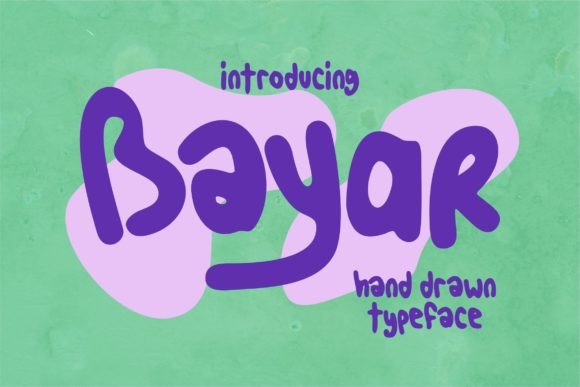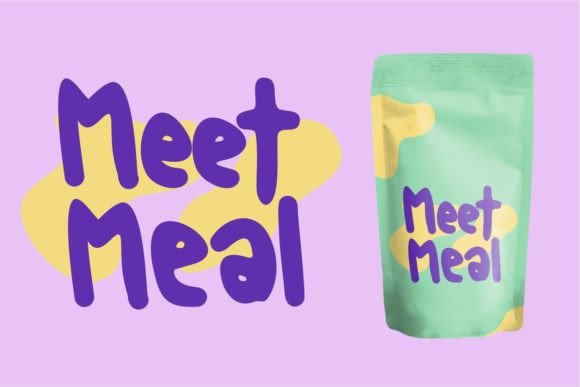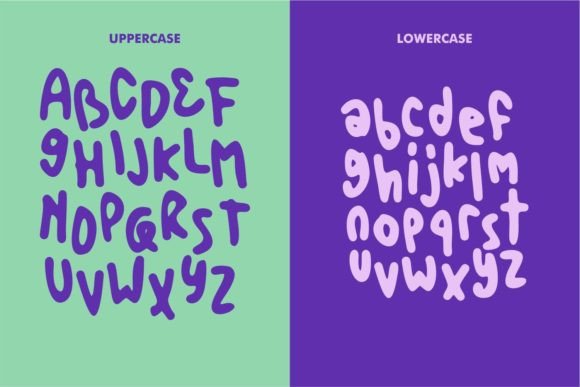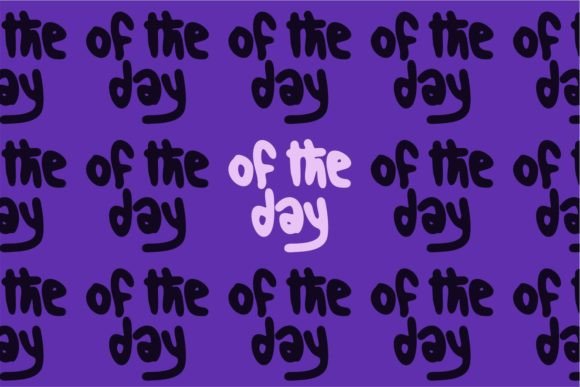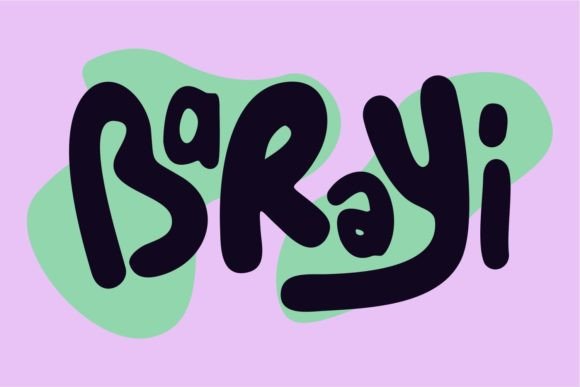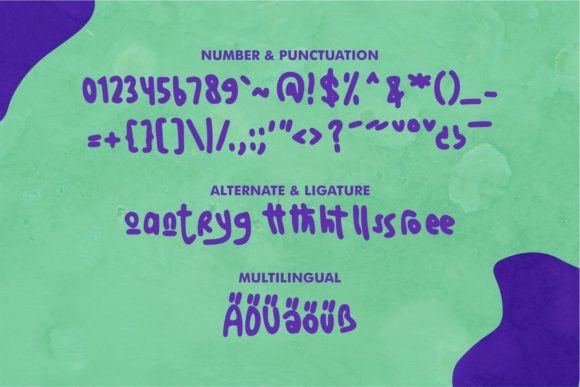
Bayar Font
About Bayar Font
Bayar is not just a font; it’s a bold and quirky handwritten script that brings a cool style to your designs, making it a unique choice for invitations, greeting cards, branding materials, business cards, quotes, posters, and more. The bold and quirky design of Bayar adds a distinctive touch to a variety of creative projects.
The bold and quirky nature of Bayar is evident in its handwritten script. The characters are crafted with a sense of boldness and individuality, making it a standout choice for projects that require a touch of uniqueness and cool style. Whether you’re designing invitations for a special event or creating business cards that make a statement, Bayar ensures that your designs stand out with its cool and quirky charm.
In branding materials, Bayar becomes a bold and memorable choice. Its quirky script adds a distinctive touch that reflects creativity and a cool vibe, making your brand visually appealing and unique.
For quotes and posters, Bayar’s bold and quirky script adds a layer of charm. The individualistic characters turn your words into visually striking statements, capturing attention and conveying a sense of creativity and style.
By including Bayar in your font collection, you’re not just adding a typeface; you’re selecting a design element that infuses your projects with boldness and quirky coolness. Bayar is designed to bring a dynamic and individualistic quality to your creative endeavors.
In essence, Bayar is a font that goes beyond being a tool. It’s an expression of bold and quirky script charm that transforms your invitations, branding materials, and creative projects into visually stunning and memorable works of art.